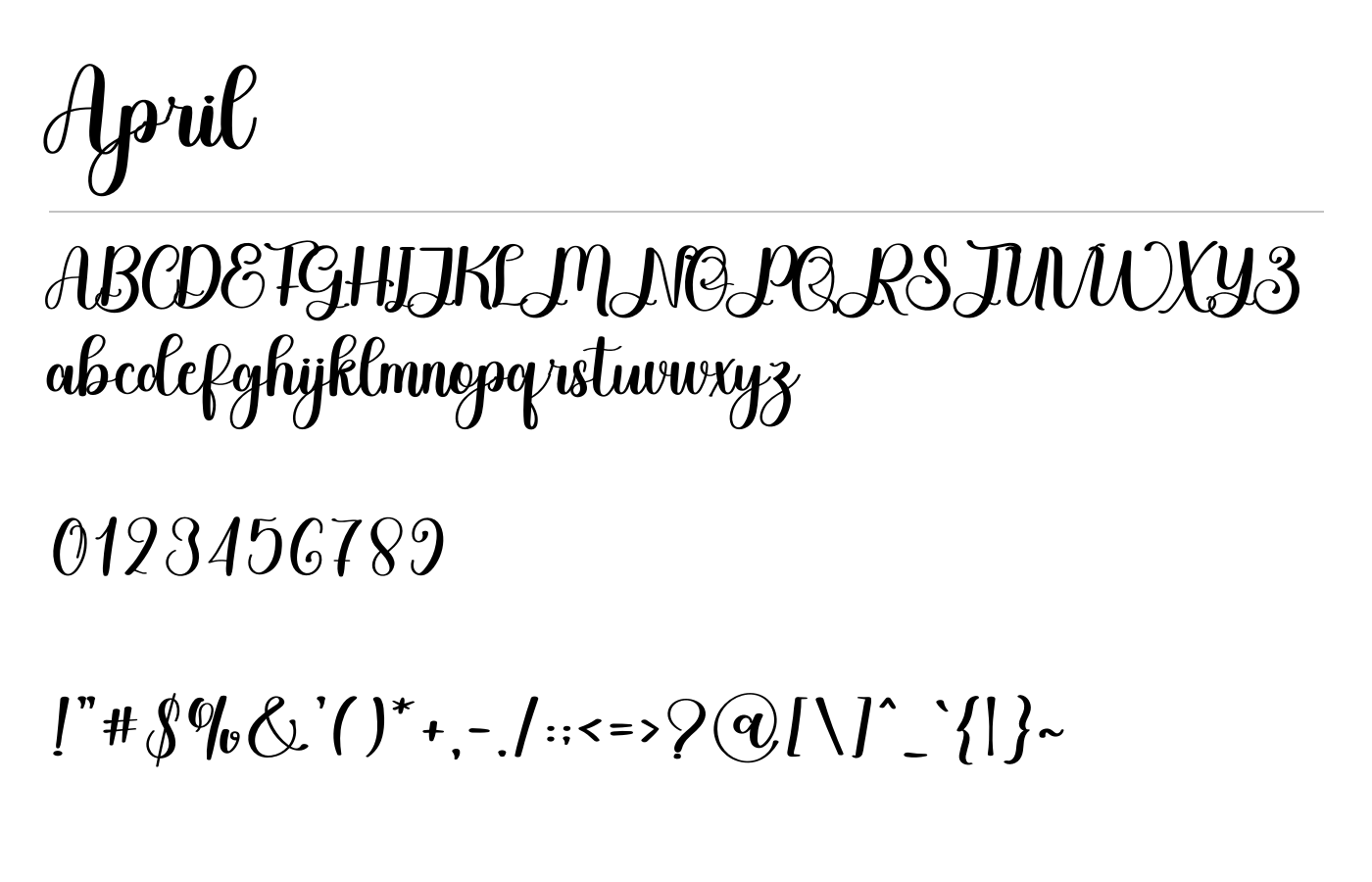
April Font is an elegant and playful script typeface featuring delicate, flowing strokes with charming swashes that give it a hand-crafted, calligraphic feel. Its light weight and tall, narrow letterforms make it perfect for creative branding, invitations, and stylish headlines where a touch of personality and sophistication is desired. This font works well in designs that aim to convey warmth, femininity, and artistic flair.
April Font